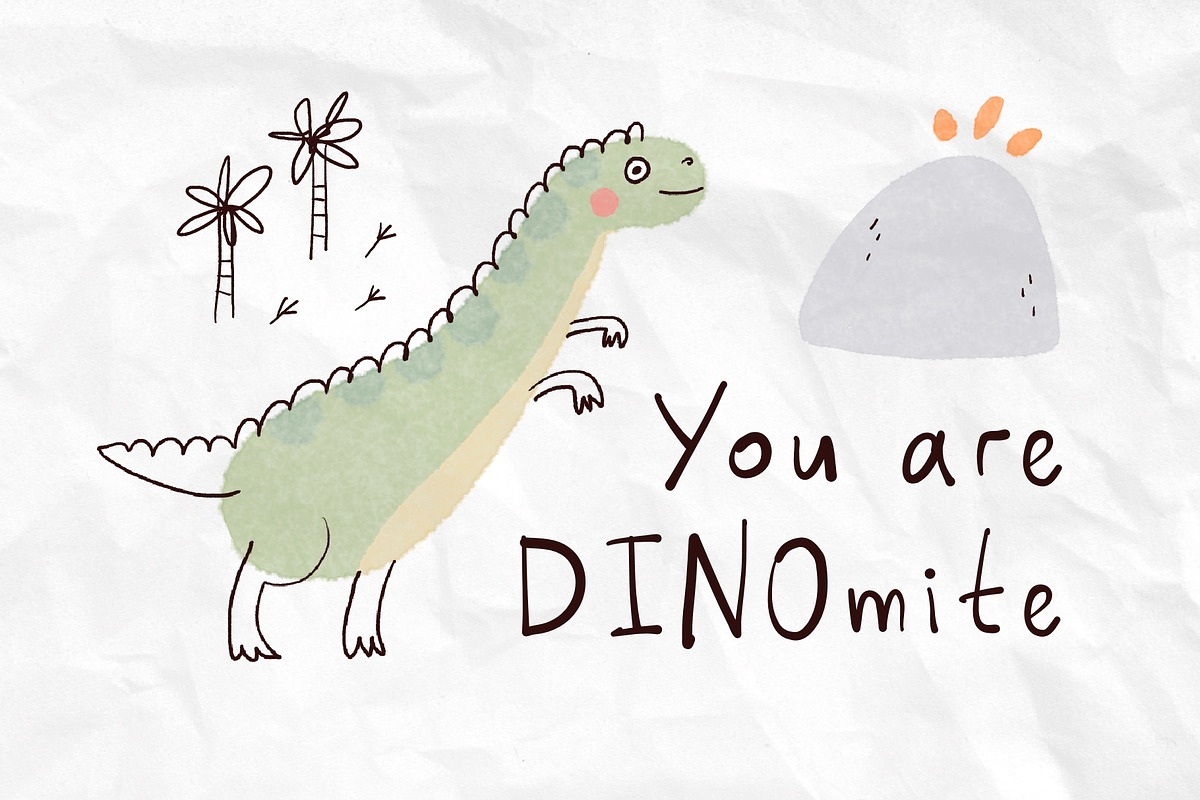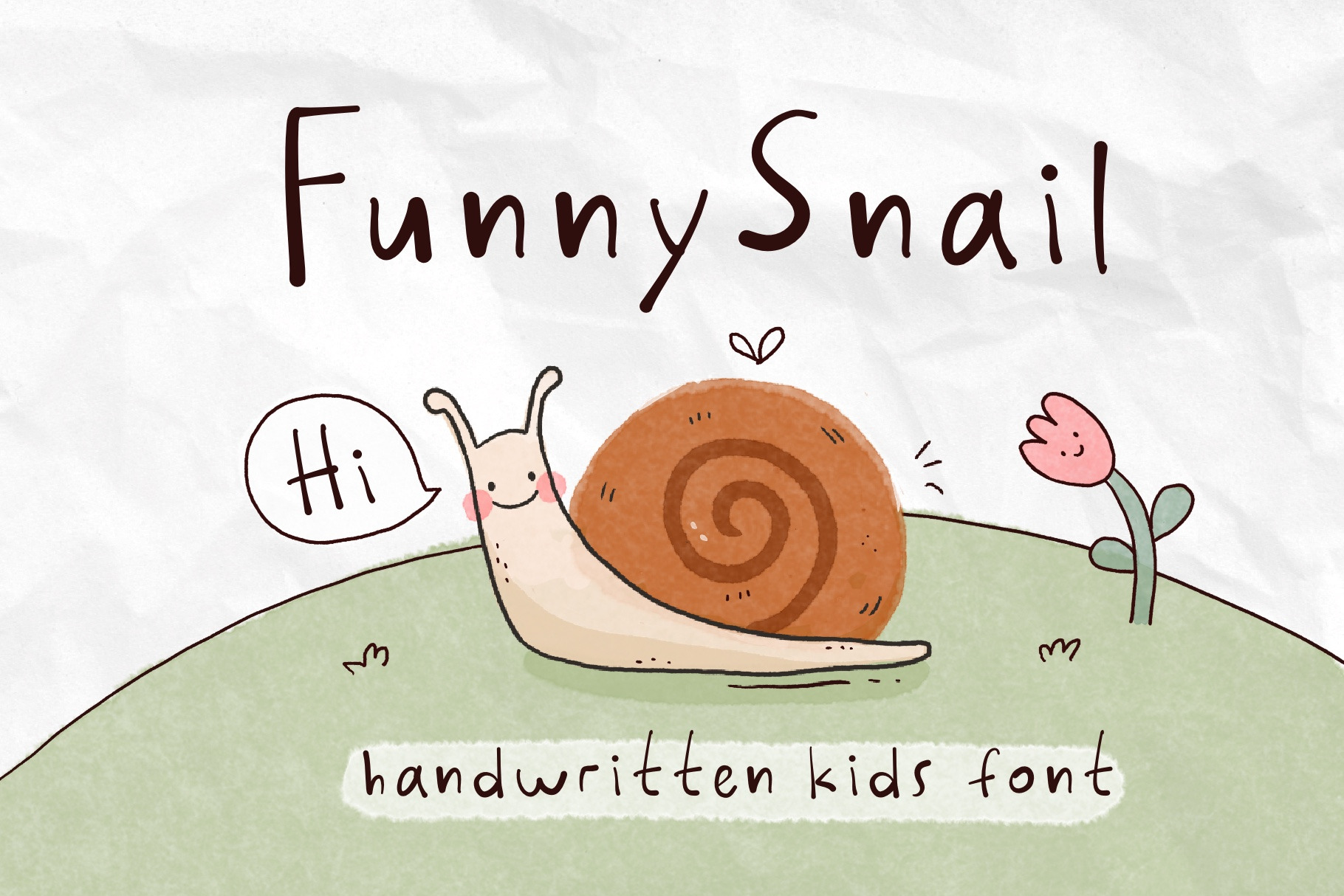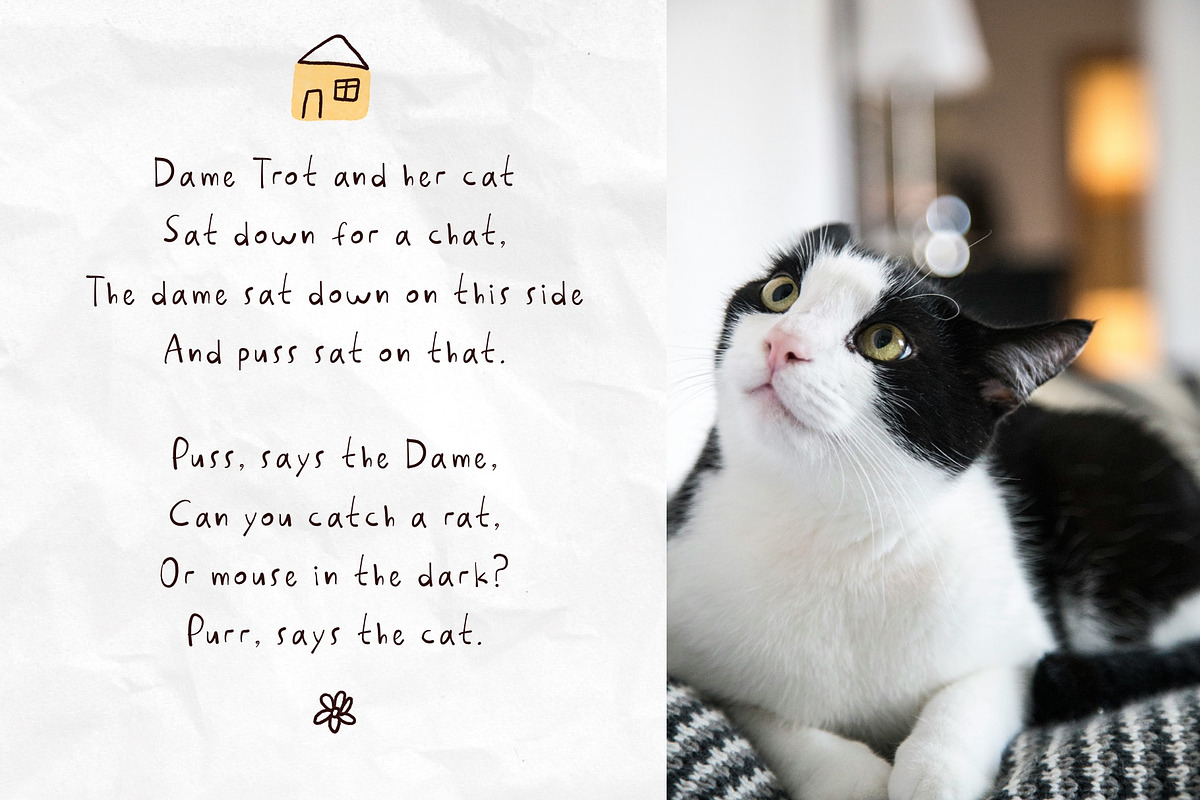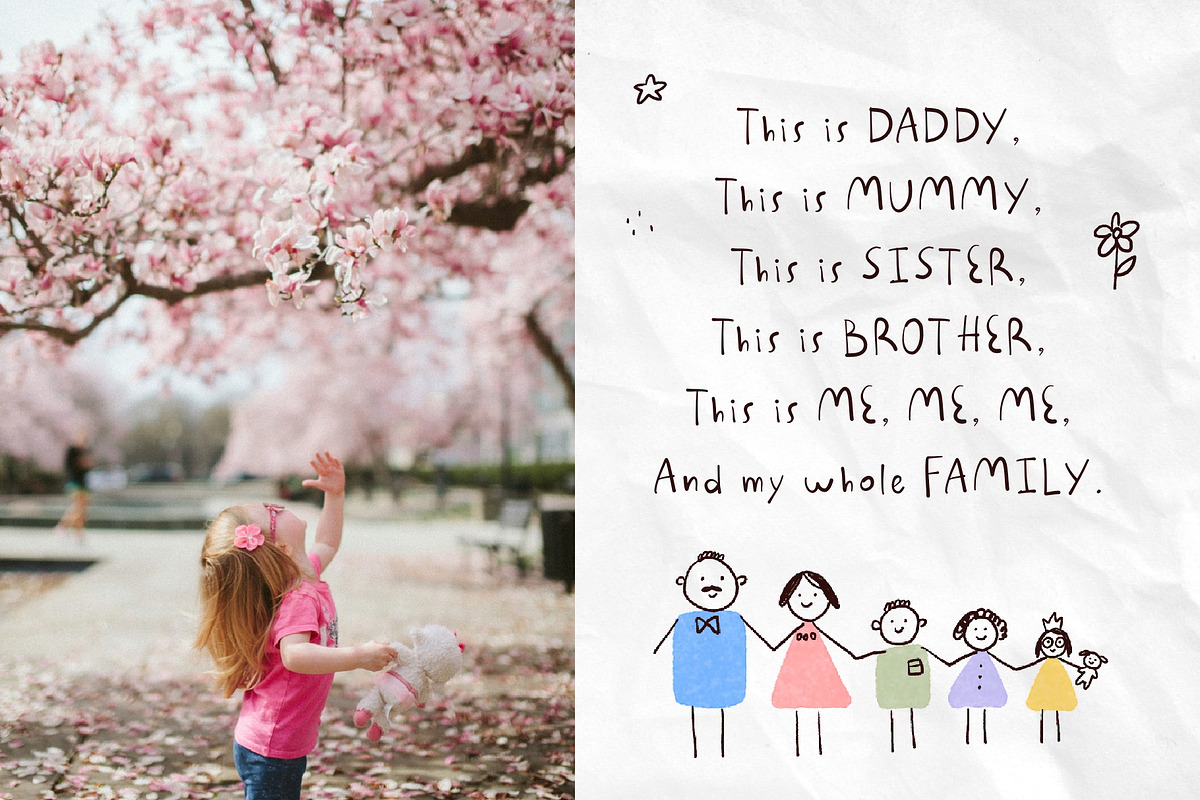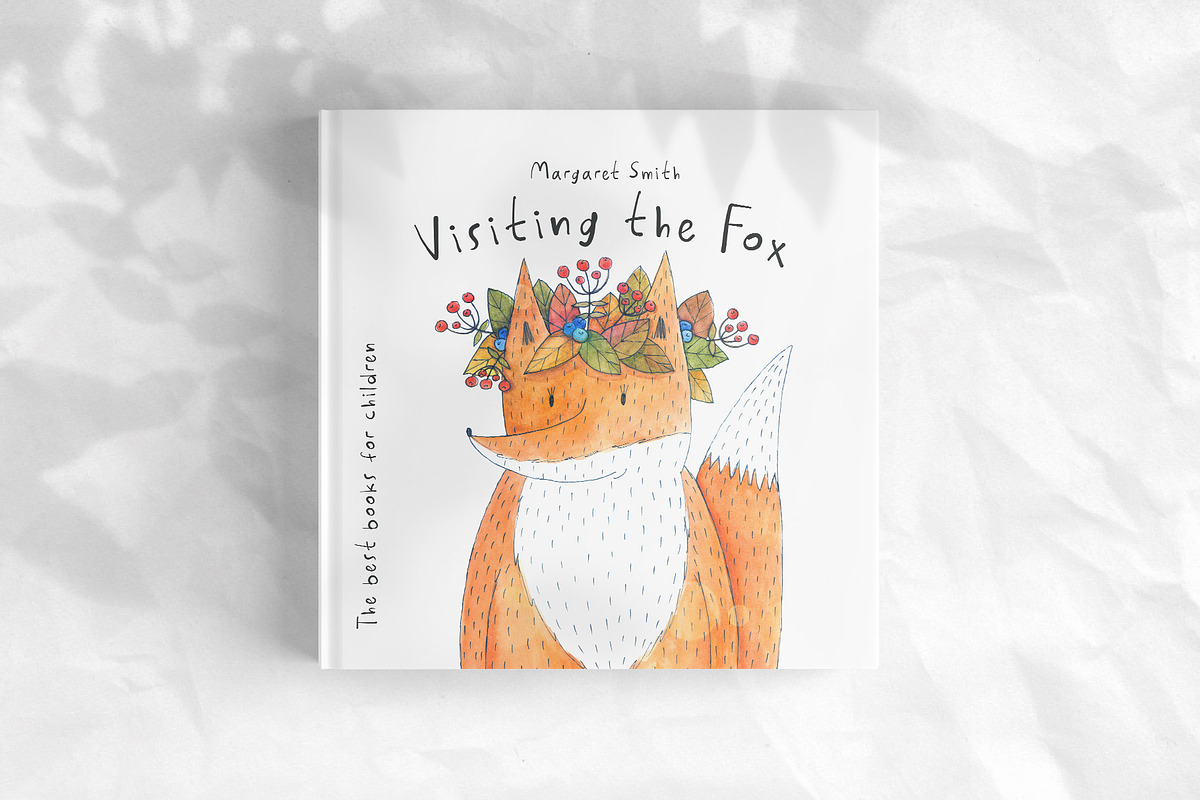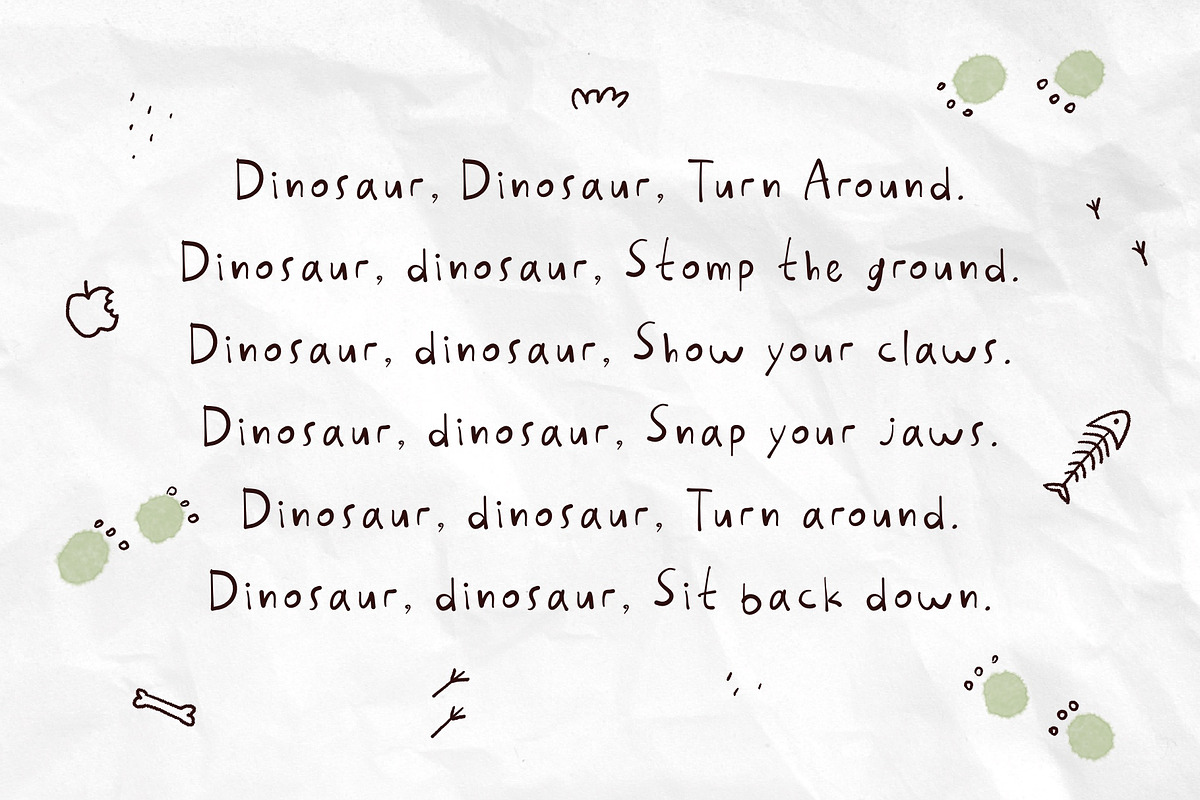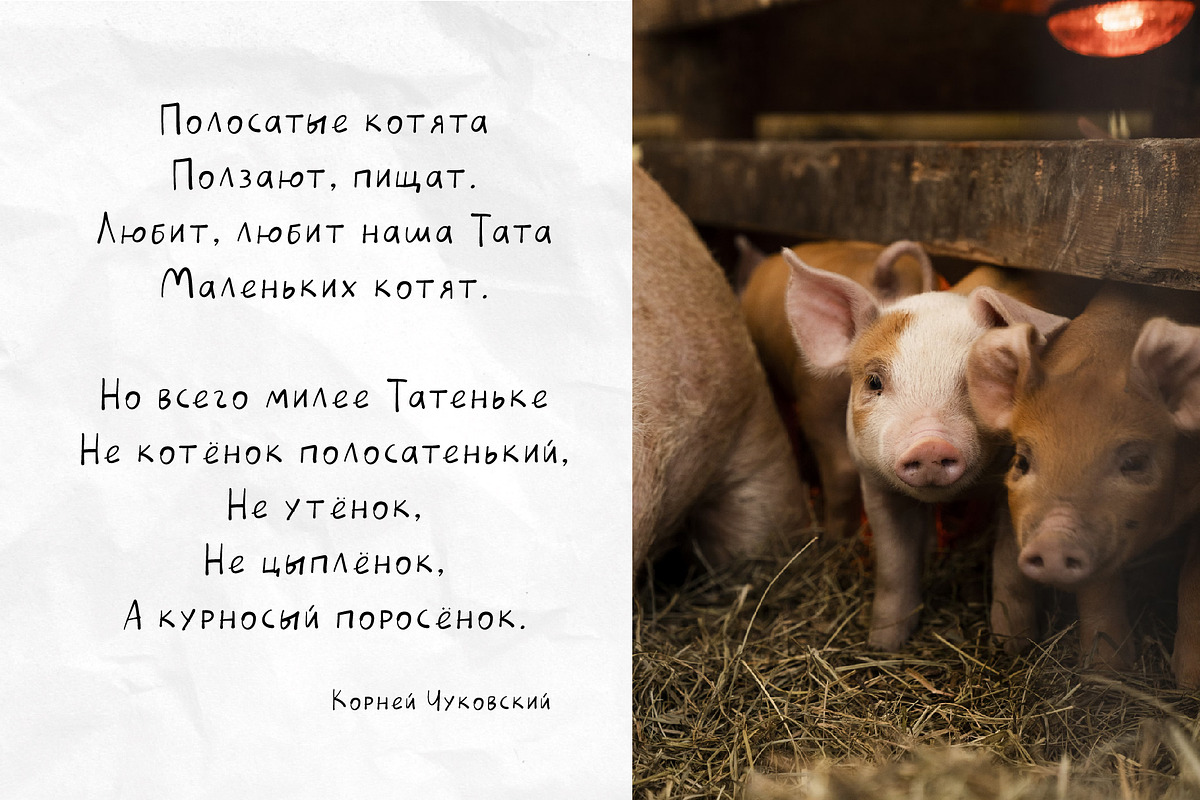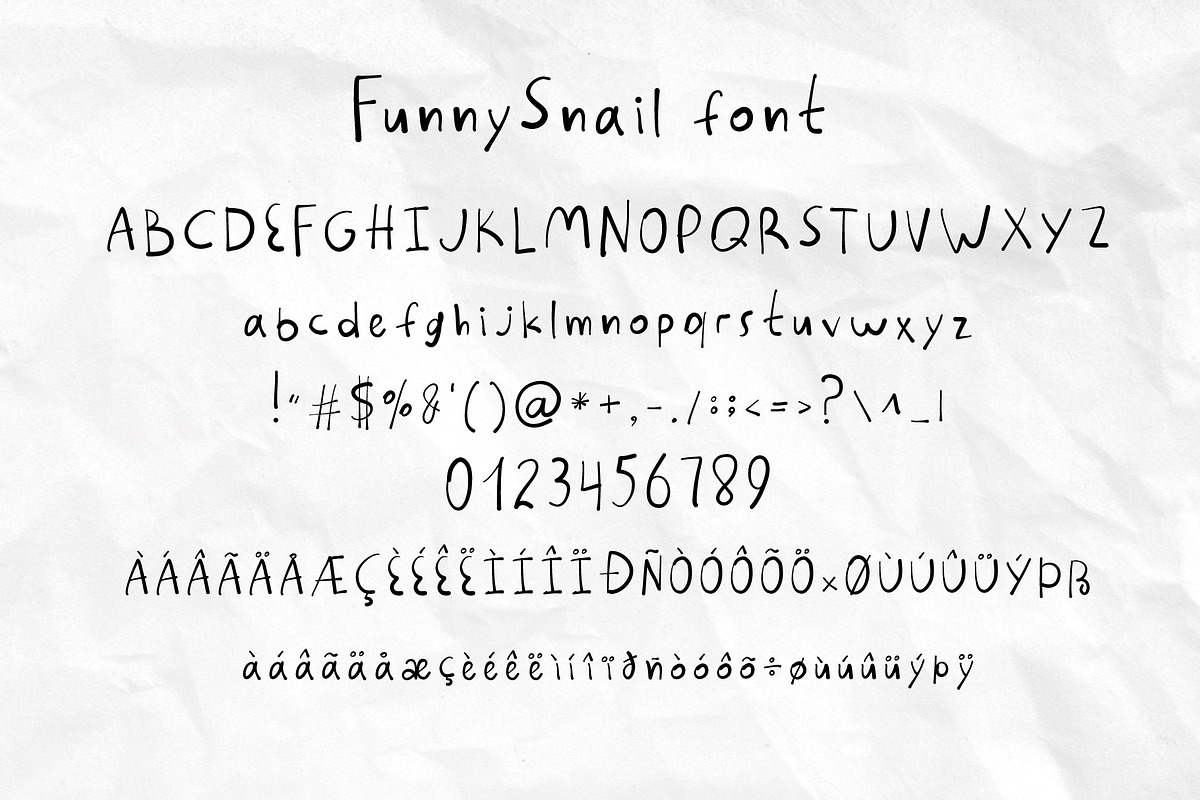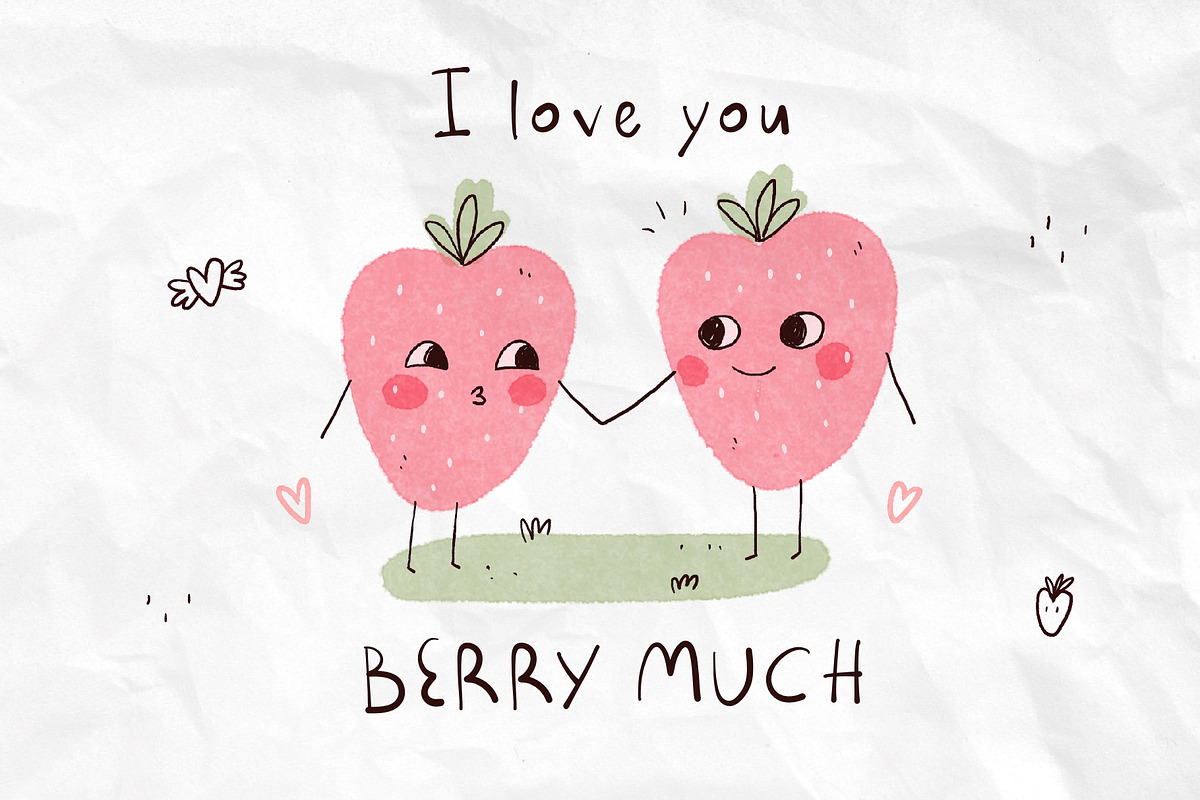
FunnySnail handwritten kids font
FunnySnail handwritten kids font this is a hand-drawn font in a childish style. It is ideal for decorating books, articles, social networks, T-shirts, interior posters and much more!